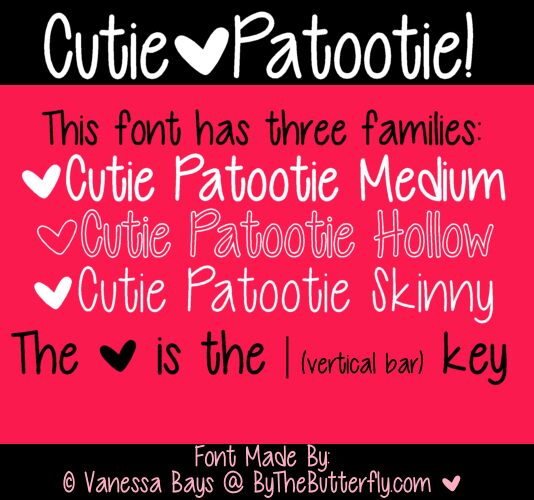
Cutie Patootie by Vanessa Bays of ByTheButterfly.com is a free handwritten font with tall, loosely drawn letters and an easy, childlike bounce. Its narrow shapes, rounded turns, and slightly uneven stroke widths recall a quick felt-tip note, with letters leaning in different directions and oversized capitals adding extra lift.
Packaging is a natural medium for its informal line, especially on confectionery, children's craft kits, and handmade-goods labels meant to feel personal rather than commercially slick. Party invitations are its strongest setting, since the upright, springy lettering resembles a cheerful note written especially for the occasion.
Cutie Patootie
Vanessa Bays: Cutie Patootie
Cutie Patootie